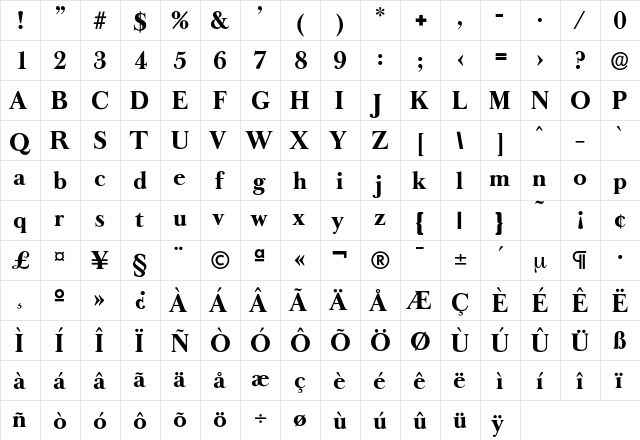
Oldbaskerville-Bold Regular
Design Context for Oldbaskerville-Bold Typeface
Oldbaskerville-Bold is a composed and adaptable typeface that performs quietly and consistently across a wide range of design contexts. The heavy weight commands attention and anchors typographic hierarchies.